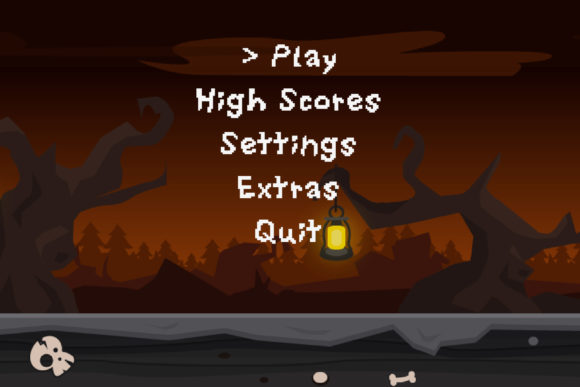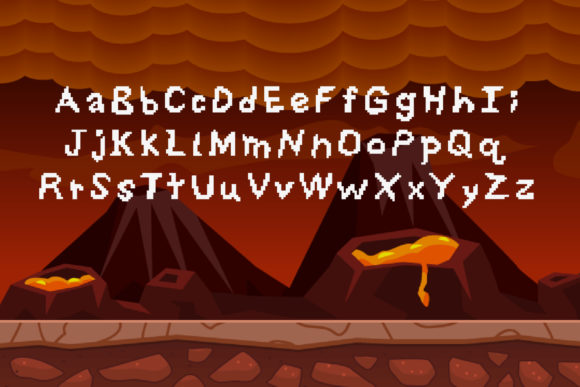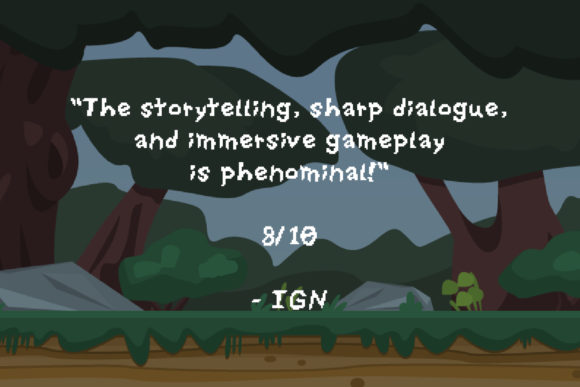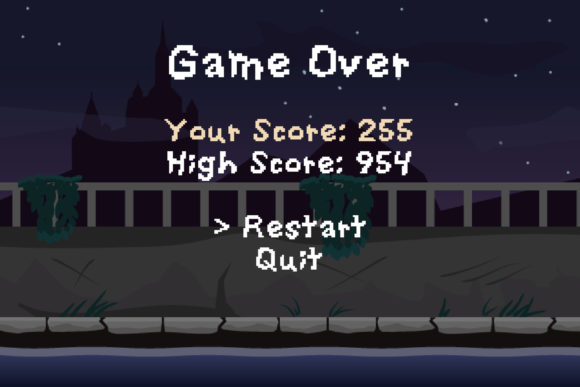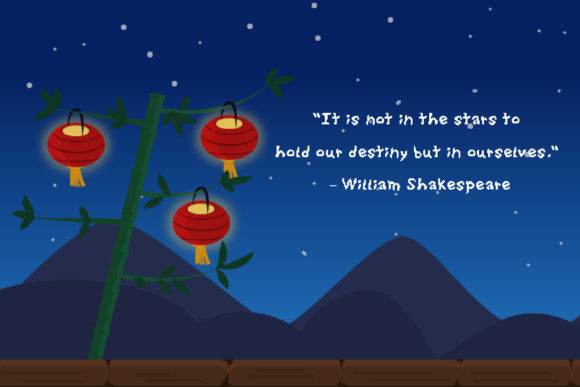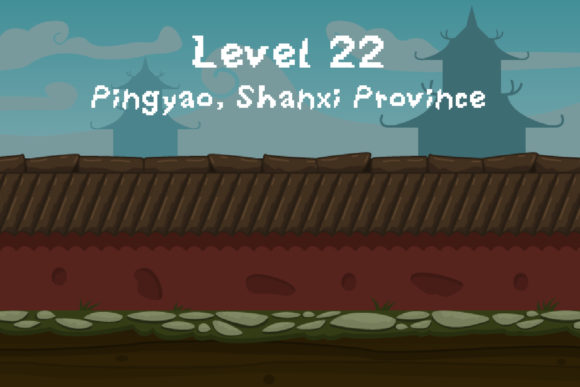
Introduction to Pixeldust Font
Pixeldust is a unique pixel display font.
The possibilities for this font are endless, you can use it for mobile apps, games, retro design projects, and much more .